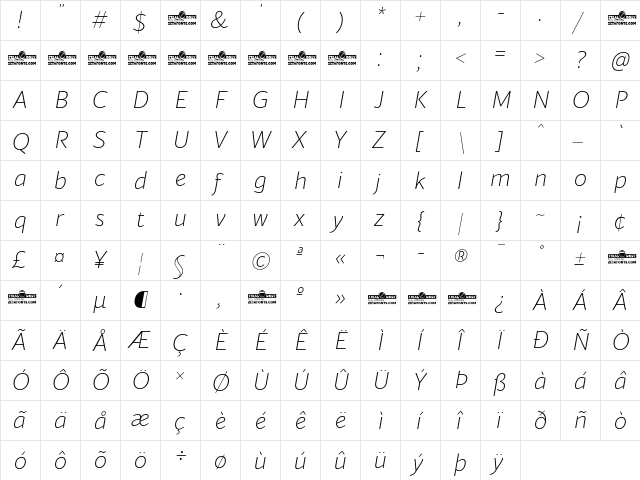
Blacker Sans Trial Extralight Italic
| Foundry | Zetafonts |
| Designer | Francesco Canovaro & Cosimo Lorenzo Pancini |
Design Context for Blacker Sans Trial Typeface
Blacker Sans Trial offers clean, dependable letterforms without strong stylistic allegiance, making it a practical choice for designers who need flexibility. The dynamic lean of this cut emphasises speed and emphasis in any layout. Its slender proportions lend an understated elegance to any composition.